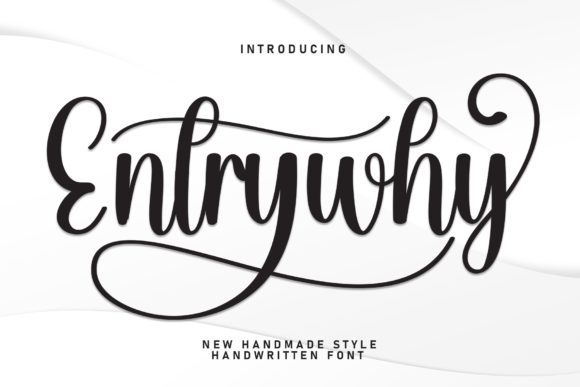
Introducing Entrywhy Font - The Heartfelt Script for Your Creative Journey
In the realm of typography, where letters dance and emotions unfold, there exists a font that captures the essence of warmth and charm - Entrywhy Font. This alluring script, meticulously crafted by the talented William Jhordey, invites you to embark on a captivating journey of creativity and heartfelt expression.
With its graceful curves and playful strokes, Entrywhy Font exudes a sense of whimsy and delight. Its enchanting characters, reminiscent of handwritten notes penned with love, evoke feelings of nostalgia and familiarity. Whether you're designing wedding invitations, heartfelt cards, or any project that demands a personal touch, Entrywhy Font is your perfect companion.
Step into a world of endless possibilities with Entrywhy Font. Its versatility knows no bounds, allowing you to explore a myriad of design styles and themes. From rustic elegance to contemporary chic, this font effortlessly adapts to your creative vision. Its innate ability to convey emotions makes it a captivating choice for branding, packaging, and social media graphics.
Embrace the magic of Entrywhy Font and let your designs blossom with warmth and personality. Its meticulously crafted characters will add a touch of enchantment to your creations, captivating your audience with their charm and authenticity. With Entrywhy Font, your designs will resonate with hearts and leave a lasting impression.
Unlock the gateway to creative freedom with Entrywhy Font. Its user-friendly nature makes it accessible to designers of all levels, empowering you to unleash your imagination and create designs that speak to the soul. As you explore the depths of Entrywhy Font's versatility, you'll discover a world of endless possibilities, where your creativity knows no limits.